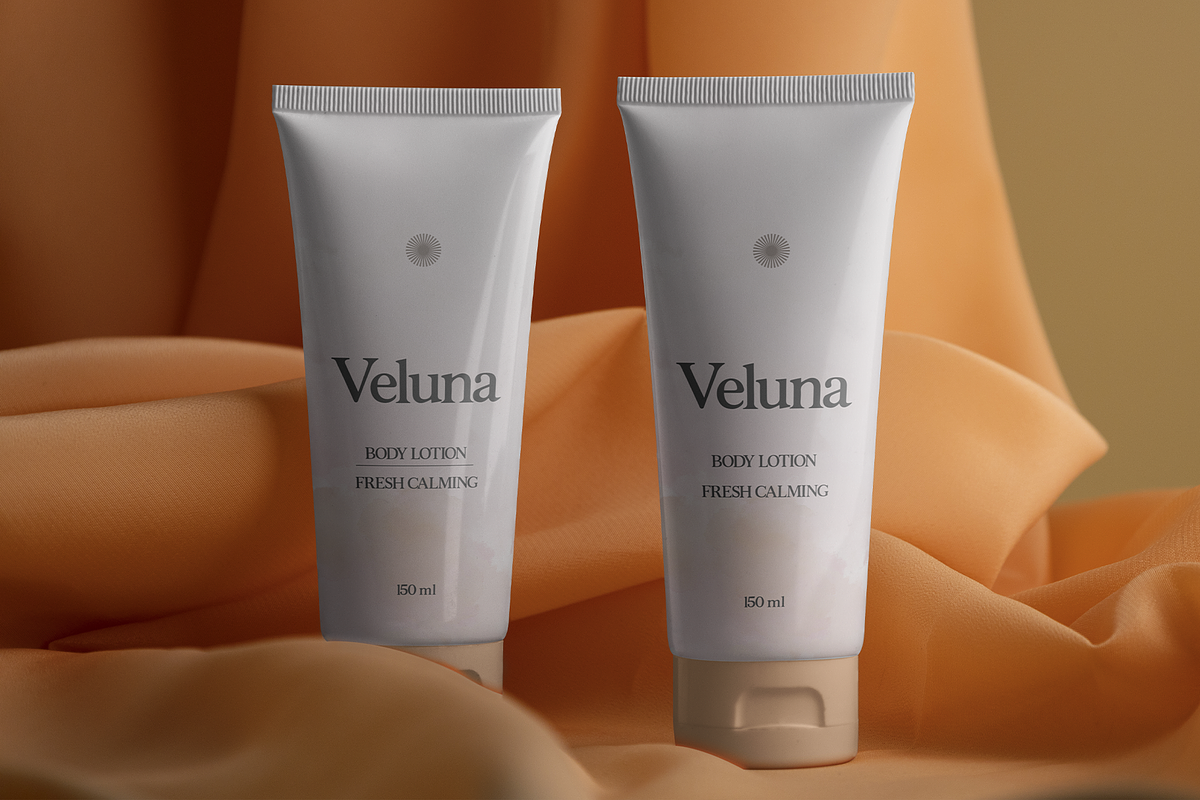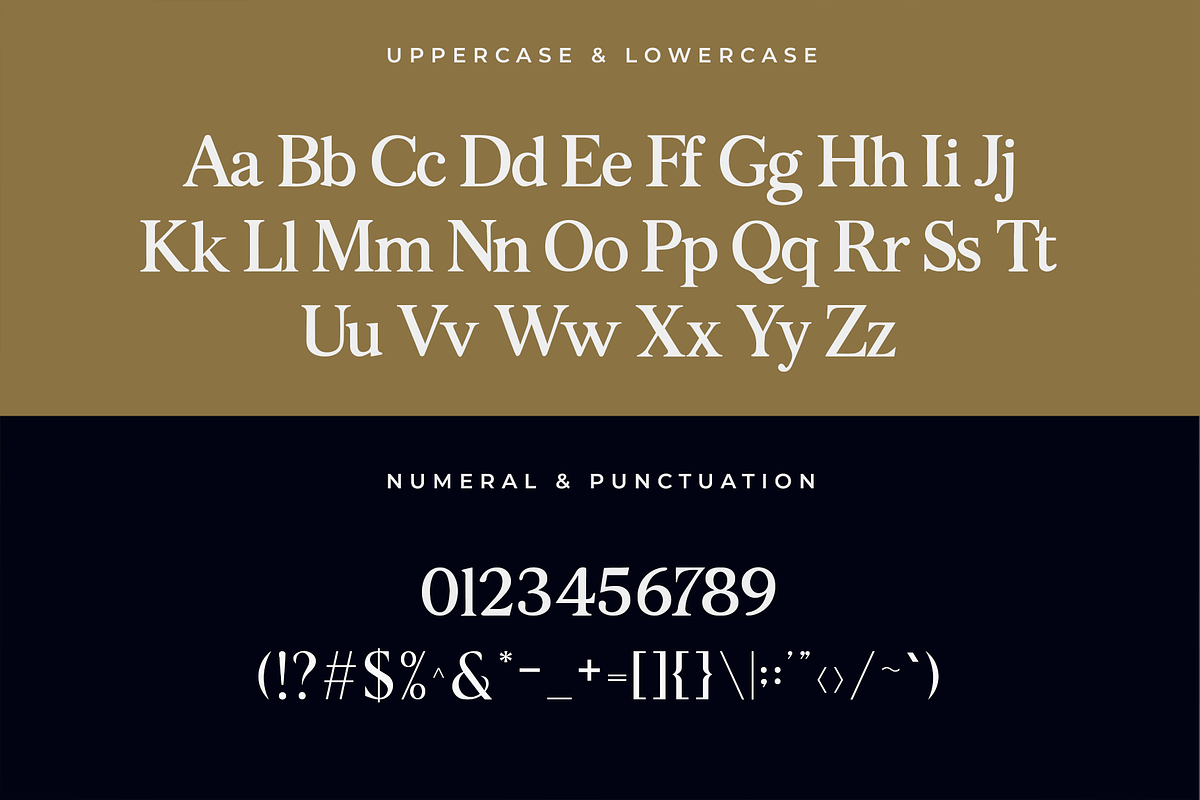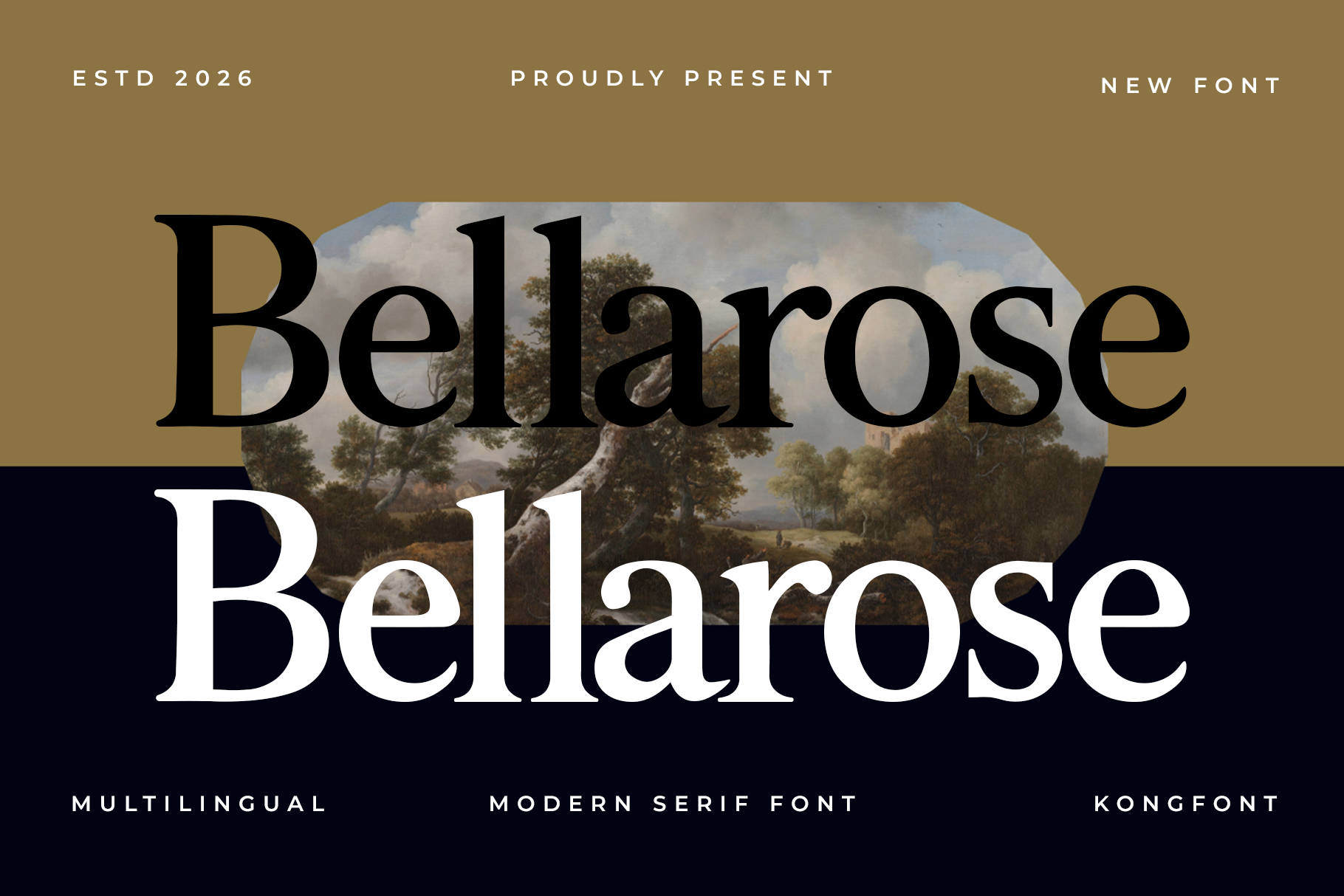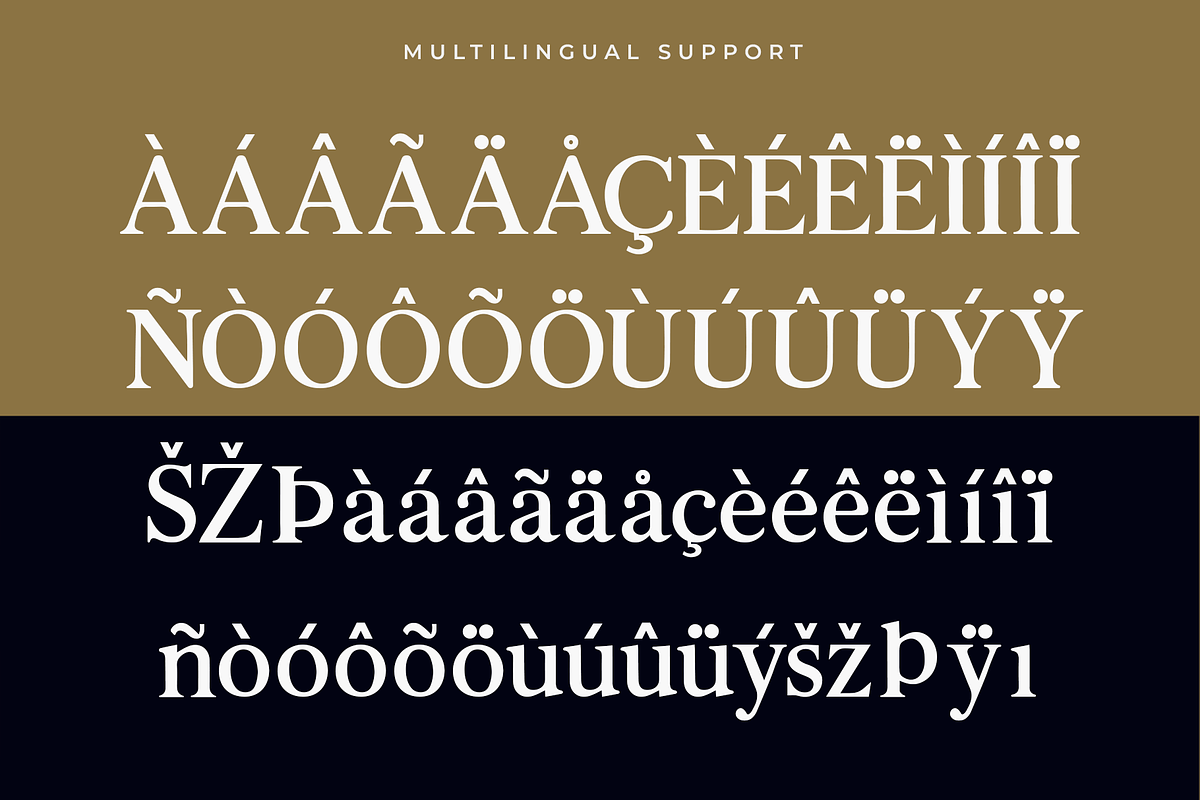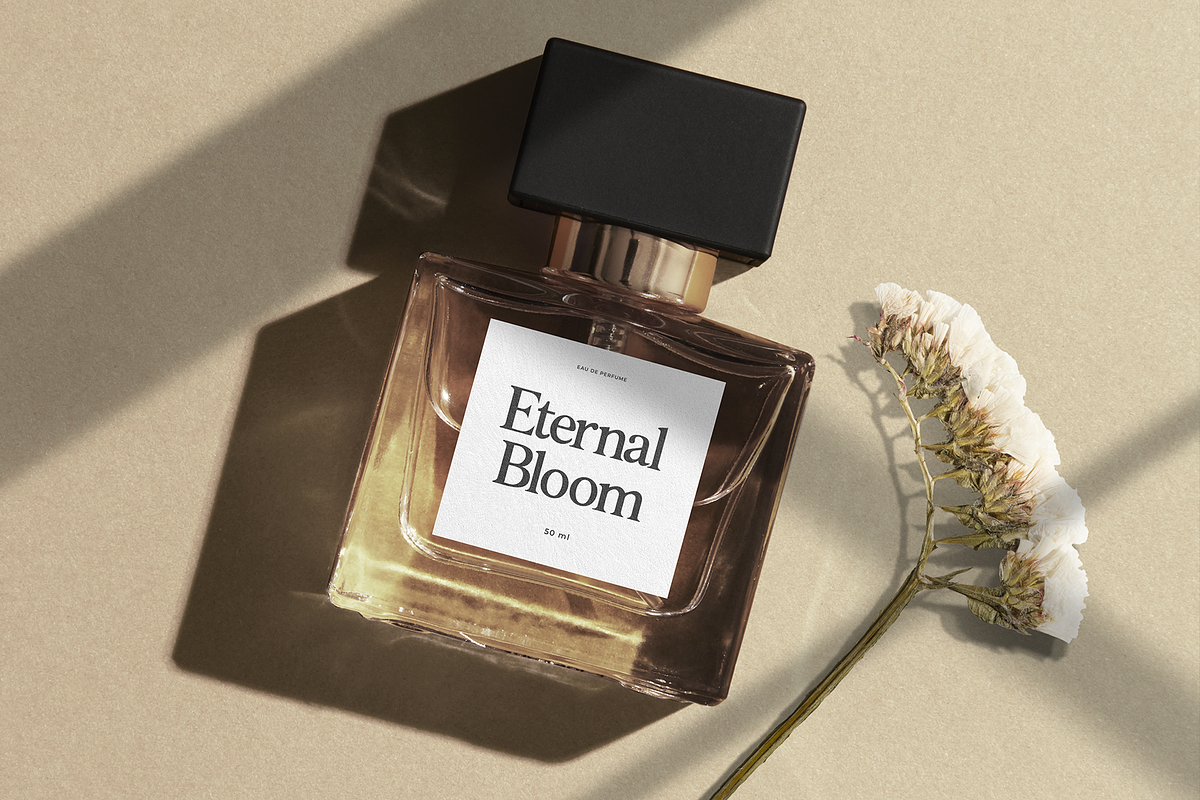
Bellarose – Modern Serif Font
Bellarose is a modern serif font designed to express elegance, femininity, and refined charm. With its graceful serifs, smooth curves, and balanced proportions, Bellarose offers a timeless aesthetic with a fresh contemporary touch.
Perfect for wedding invitations, beauty branding, fashion editorials, logos, packaging, social media content, and luxury design projects, Bellarose adds a soft yet sophisticated presence to every composition. Its stylish structure ensures readability while maintaining a high end visual appeal.